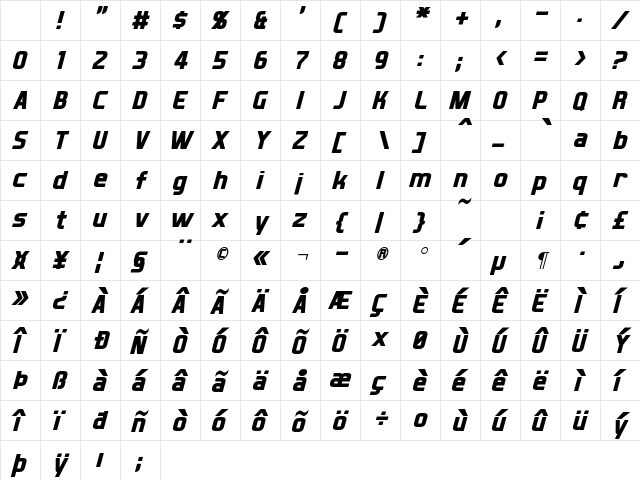
XBall is a composed and adaptable typeface that performs quietly and consistently across a wide range of design contexts. The slanted form adds forward momentum and visual energy.
Pro Tip: Use XBall for emphasis, pull quotes, and subheadings where its slanted energy can add rhythm to the layout.